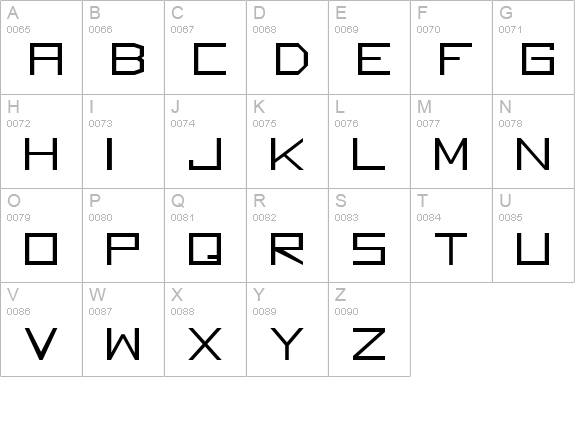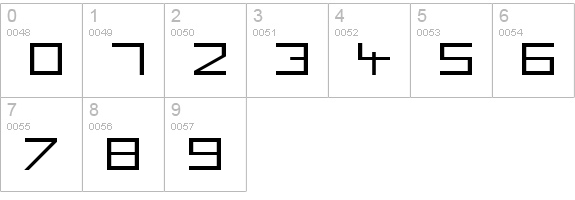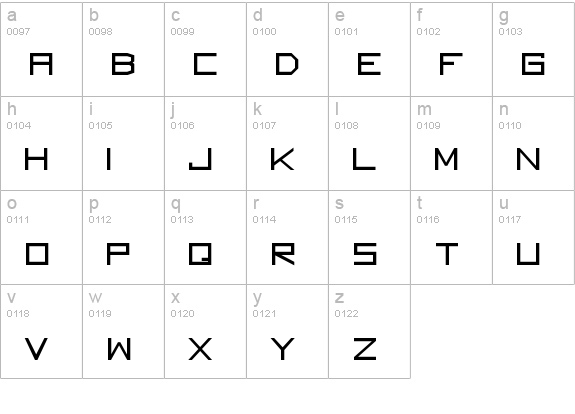
Square Unique Normal Font Details
Square Unique Normal is the standard, neutral variant in the Square typeface family \xE2\x80\x94 well suited to general body text, paragraphs, and standard typographic work.
Square Unique Normal is a captivating font that effortlessly combines modern simplicity with a touch of uniqueness. Its clean lines and geometric shapes make it an ideal choice for a wide range of design projects, from sleek logos to eye-catching headlines. With its balanced letterforms and consistent spacing, Square Unique Normal exudes a sense of confidence and professionalism. The sharp edges and symmetrical structure give this font a contemporary edge, making it perfect for cutting-edge designs. What sets Square Unique Normal apart is its ability to stand out while maintaining a sense of versatility. Whether you're looking to create a bold statement or a subtle elegance, this font can adapt to any style or mood. And the best part? Square Unique Normal is available for free download at FontsMarket.com. No need to worry about breaking the bank for a high-quality font – simply head over to FontsMarket.com and enjoy the freedom of adding this exceptional typeface to your collection without spending a dime. So why wait? Elevate your design projects with Square Unique Normal and let its distinctive charm captivate your audience. Get your hands on this remarkable font today, exclusively at FontsMarket.com.